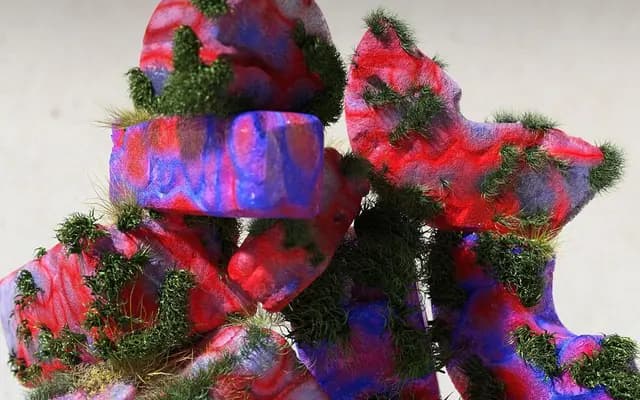
Clerk
Approximate Type · Approximate Type (after Samuel de Clerq)
A one-weight display typeface revived from 1920s Dutch architectural lettering, in which deliberate gaps transform a stencil logic into surface ornament.
Based on facade lettering attributed to Dutch architect Samuel de Clerq, drawn in the 1920s for the savings bank of The Hague, the typeface treats its gaps not as functional stencil breaks but as decorative texture. Bowl-ligatures across both upper and lowercase, along with a flat-top figure eight, add specificity and period character. Its modular construction lends itself to headline work, animation and more experimental dismantling of letterforms.
A single-weight display typeface with deliberate decorative gaps that exceed functional stencil requirements, rooted in early twentieth-century architectural lettering. Its modular, ornamental construction places it firmly in the display category with a stencil-adjacent character.